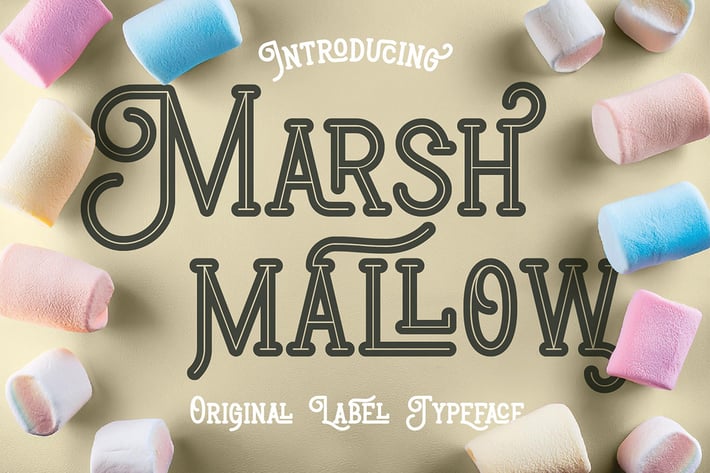
Marshmallow Retro Label Font
Unique, decorative, elegant, retro, ligature, monogram & stylish label slab serif font. Comes with multilingual support, alternates with swirls & ligatures + inline font version - great for your new logo, monogram or branding project.
- 2 font versions - regular & inline
- Multilingual support, alternates & ligatures
- Great for your new logo, monogram or branding project